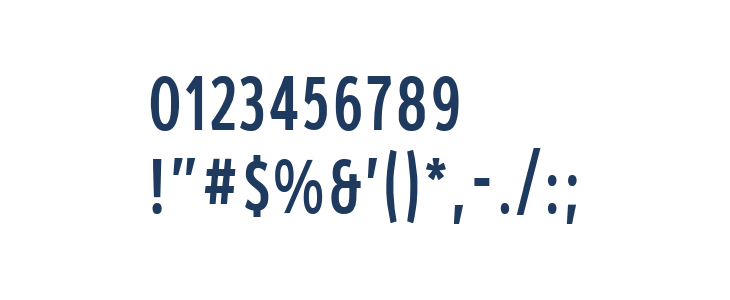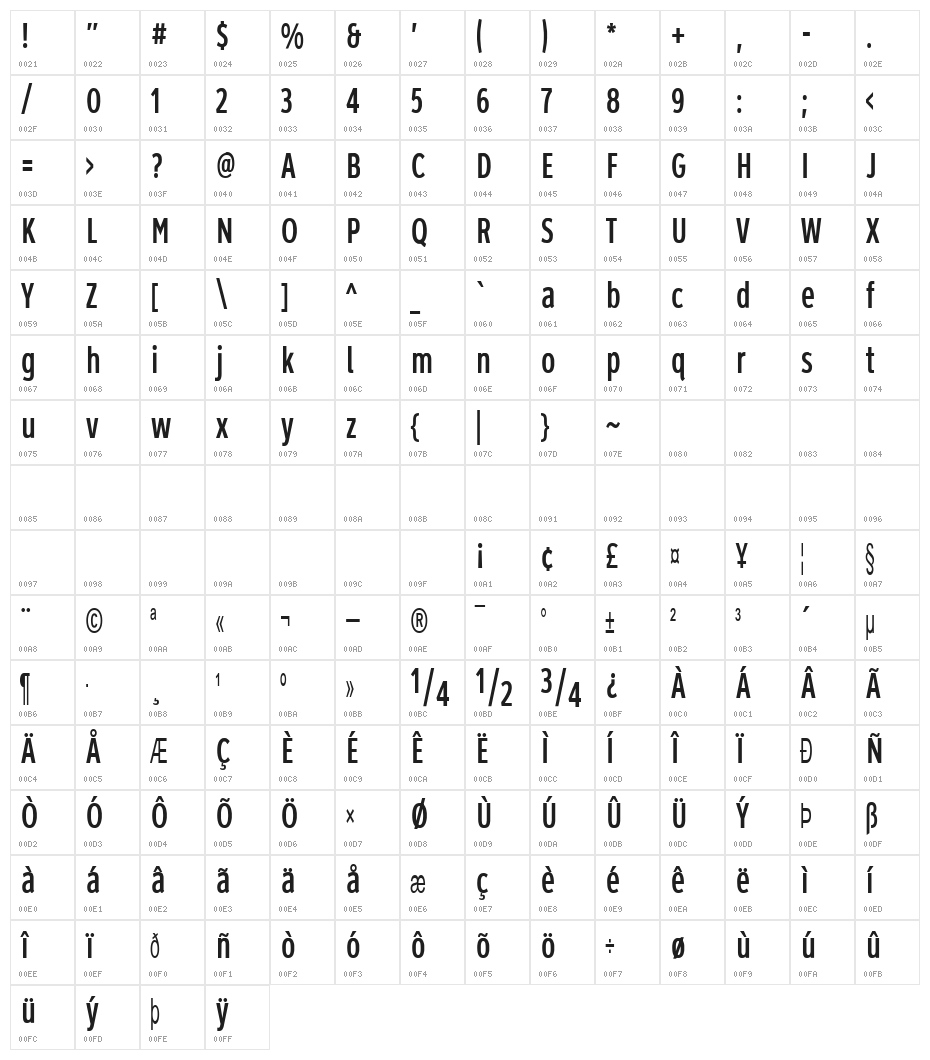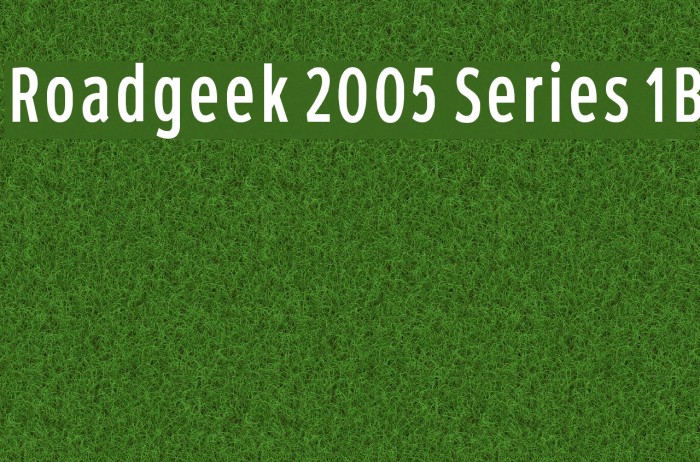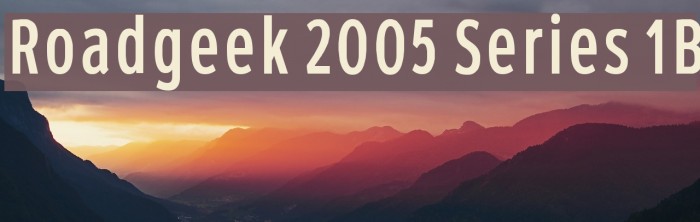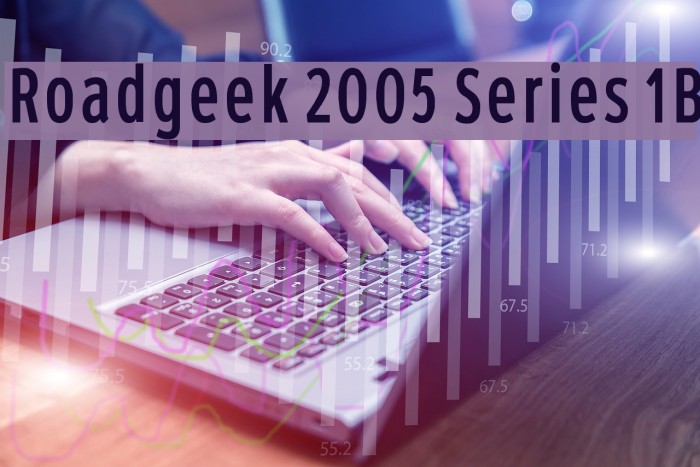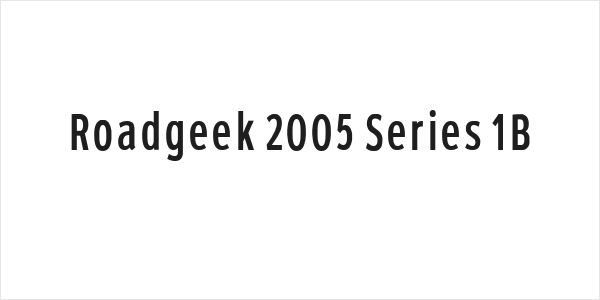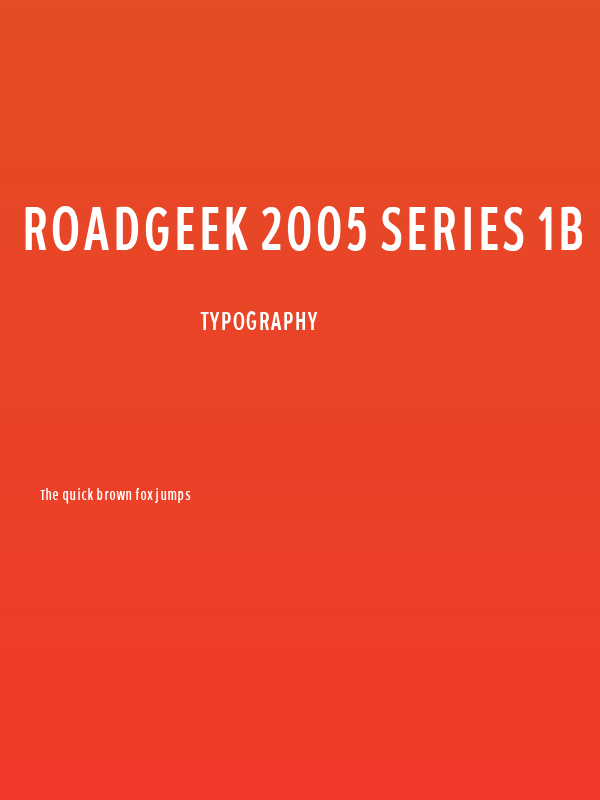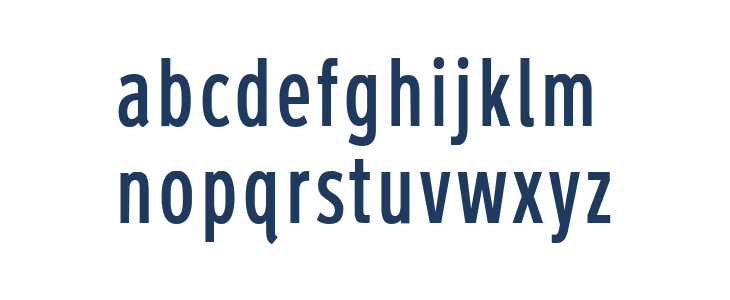
Roadgeek 2005 Series 1B Font
Roadgeek 2005 Series 1B Description
This font features a clean and modern sans-serif style with uniform stroke widths, making it highly legible and versatile. The characters are bold and slightly condensed, providing a strong visual impact. The uppercase and lowercase letters maintain a consistent design, ensuring readability across various sizes. The numerals are clear and distinct, while the special characters are well-integrated, supporting a wide range of uses. Its simplicity and clarity make it suitable for both digital and print media, offering a professional and contemporary appearance.
| Use Case | Headlines, Signage, Branding |
| Proposed Projects | Ideal for road signage, informational displays, branding, and digital interfaces. |